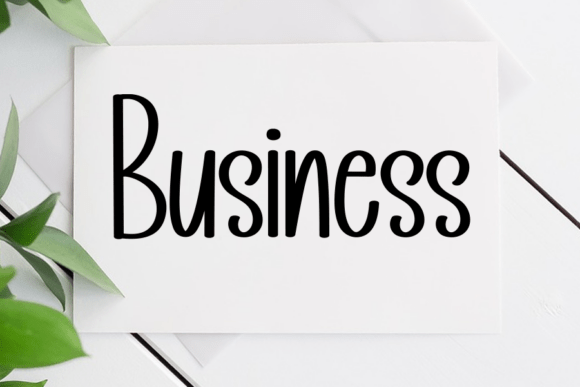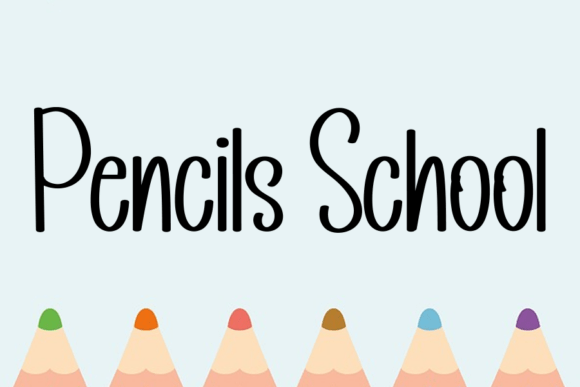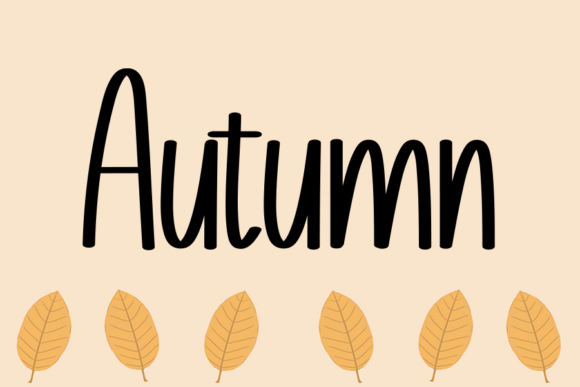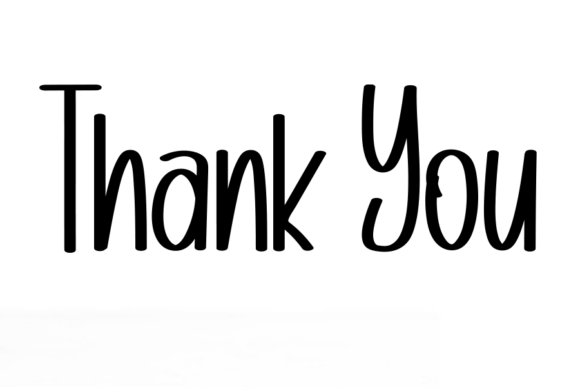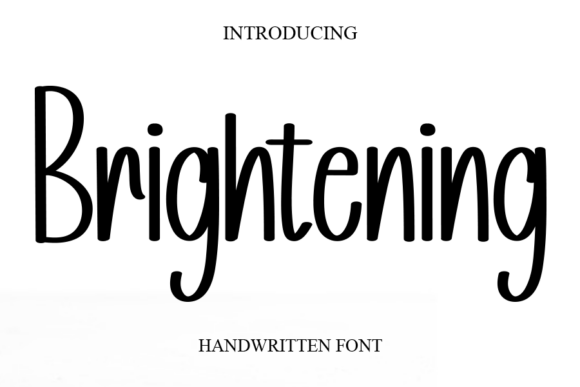
Introducing Brightening Font: The Sweet and Elegant Cursive Handwritten Font
Are you looking for a font that can add a touch of joy and romance to your designs? Look no further than Brightening Font, a beautiful and elegant cursive handwritten font that is perfect for a variety of design projects. In this article, we’ll take a closer look at Brightening Font and explore its features, uses, and benefits.
What is Brightening Font?
Brightening Font is a sweet and cursive handwritten font that is designed to add a touch of elegance and sophistication to your designs. Its gentle and flowing curves make it perfect for creating beautiful and eye-catching text that will capture the attention of your audience. Whether you’re working on a branding project, creating a logo, or designing a wedding invitation, Brightening Font is the perfect choice.
Features of Brightening Font
So, what makes Brightening Font so special? Here are just a few of its key features:
- Sweet and cursive: Brightening Font has a sweet and cursive style that is perfect for creating elegant and sophisticated text.
- Handwritten: This font has a handwritten feel that gives it a personal and unique touch.
- Versatile: Brightening Font can be used for a variety of design projects, from branding and logos to wedding invitations and greeting cards.
- Elegant and casual: This font strikes the perfect balance between elegance and casualness, making it perfect for designs that need to look fancy but still approachable.
Uses of Brightening Font
So, what can you use Brightening Font for? The possibilities are endless! Here are just a few ideas to get you started:
- Branding: Use Brightening Font to create a beautiful and memorable brand identity that will stand out from the crowd.
- Logos: This font is perfect for creating elegant and sophisticated logos that will help your business or brand stand out.
- Wedding things: Brightening Font is a popular choice for wedding invitations, wedding cards, and other wedding-related designs.
- Greeting cards: Use this font to create beautiful and heartfelt greeting cards for special occasions.
- Fashion: Brightening Font is perfect for fashion designs, such as lookbooks, catalogs, and advertisements.
- Marketing promotion: Use this font to create eye-catching marketing materials, such as brochures, flyers, and posters.
Benefits of Using Brightening Font
So, why should you choose Brightening Font for your design projects? Here are just a few benefits of using this beautiful font:
- Unique and creative: Brightening Font is a unique and creative font that will help your designs stand out from the crowd.
- Elegant and sophisticated: This font adds a touch of elegance and sophistication to your designs, making them perfect for high-end brands and luxury products.
- Easy to read: Brightening Font is easy to read, even in small sizes, making it perfect for body text and captions.
- Customizable: This font can be customized to fit your brand’s style and personality, making it perfect for branding and marketing projects.
In conclusion, Brightening Font is a beautiful and elegant cursive handwritten font that is perfect for a variety of design projects. Its sweet and flowing curves make it perfect for creating eye-catching text that will capture the attention of your audience. Whether you’re working on a branding project, creating a logo, or designing a wedding invitation, Brightening Font is the perfect choice. So why wait? Download Brightening Font today and start creating beautiful and elegant designs that will leave a lasting impression!
- Brightening Font is a sweet and cursive handwritten font.
- It’s perfect for branding, logos, wedding things, greeting cards, fashion, and marketing promotion.
- It’s easy to read and customizable.
- It adds a touch of elegance and sophistication to your designs.